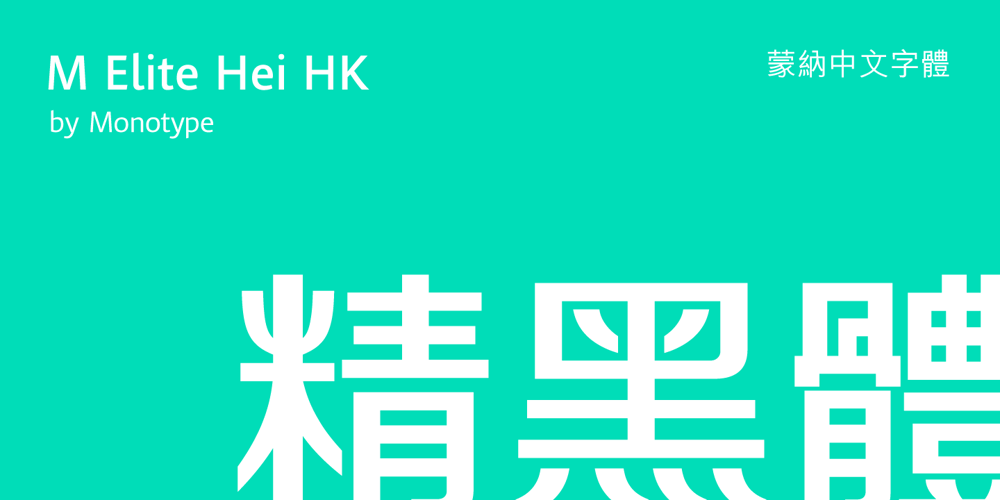
M Elite Hei HK Font Family was designed by Monotype HK Design and published by Monotype HK. M Elite Hei HK contains 2 styles and family package options. M Elite Hei HK is a graphic style Traditional Chinese typeface. Graphic font designs have strong personalities and visual impact. Graphic style Traditional Chinese fonts feature decorative elements and pronounced graphics characteristics, suitable for catching attention in display applications.